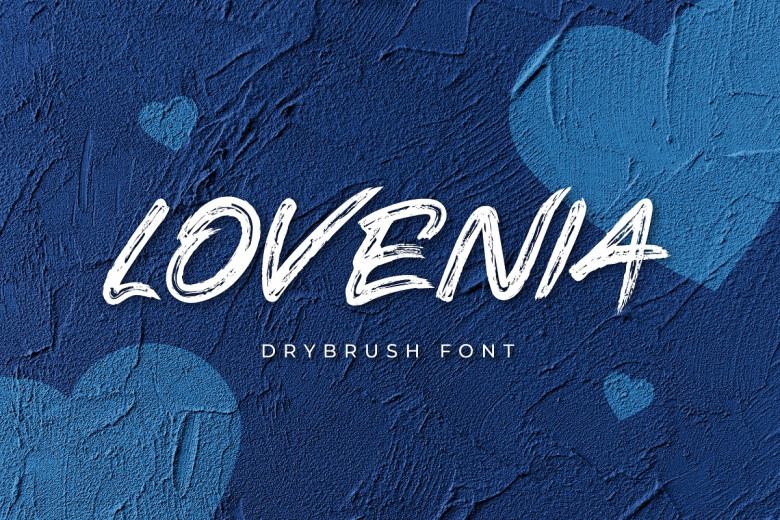
Lovenia Font
Lovenia Font is a rustic, dapper dry brush font with a personal charm. This font also represents the characteristics of natural paint that are firm and thick, which is a combination of basic fonts with curves and shapes that are different but remain parallel between fonts, so they will look neat and clear. With thick weights that are perfect for adding image and charm to your design so people are interested in reading/seeing.
This font functions most strongly as a display font or title. suitable for, logos, branding, fashion, food, restaurants, cafes, labels, book covers, t-shirts, advertisements, social media posts, and other creative and impressive designs that require the appearance of clear and attractive letters.
Lovenia Dry Brush Font